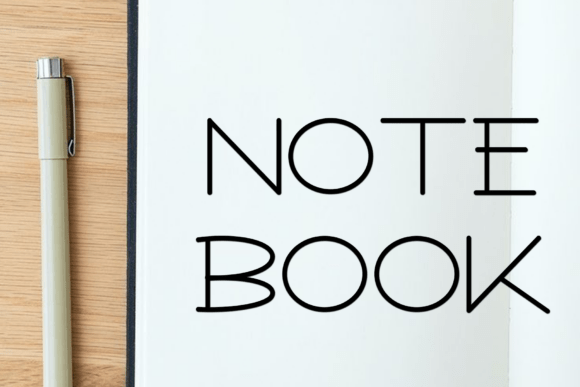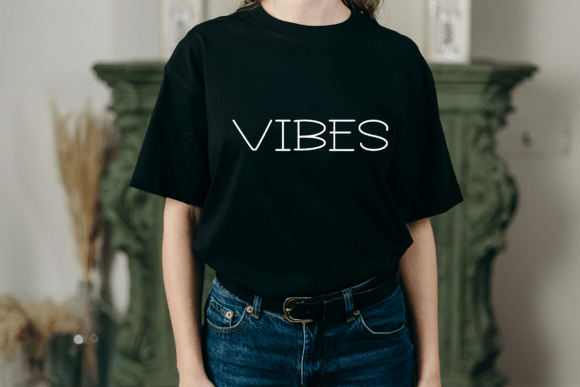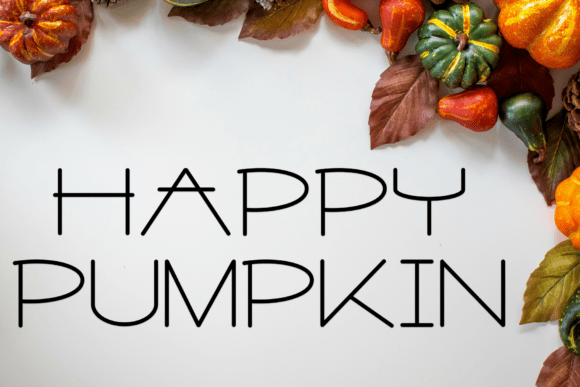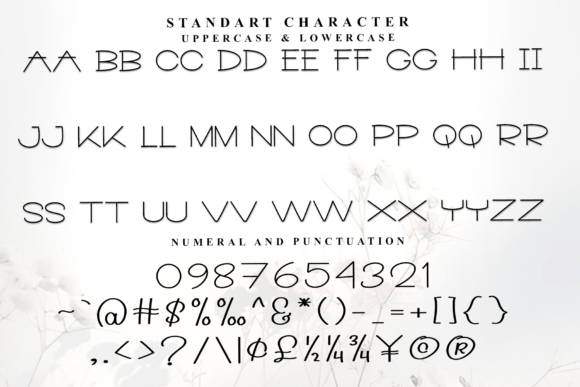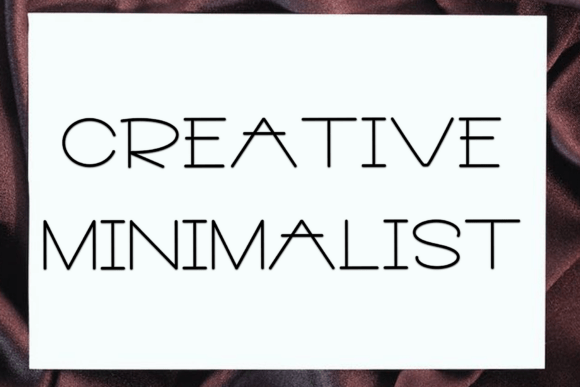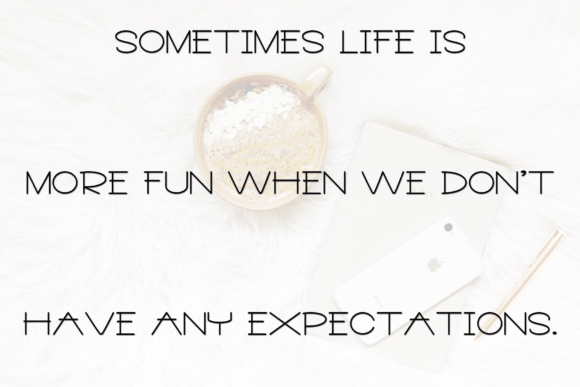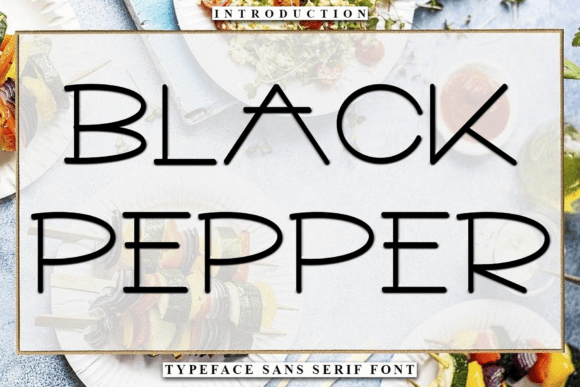
Introducing Black Pepper Font: The Modern Sans Serif Display Font
In the world of typography, a font can make or break a design. For designers and crafters looking for a modern and versatile font to elevate their projects, Black Pepper Font is an excellent choice. This modern sans serif display font boasts a clean yet distinctive geometric style, making it perfect for a wide range of applications.
What is Black Pepper Font?
Black Pepper Font is a contemporary sans serif display font designed to add a bold and creative flavor to any design. Its tall, narrow letterforms and sharp angles give it a sleek and modern edge, while the smooth, rounded strokes keep it approachable and versatile. This unique combination of features makes Black Pepper Font an excellent choice for designers looking to create stylish branding, logos, packaging, posters, and menus.
Key Features of Black Pepper Font
- Clean and Geometric Style: Black Pepper Font features a clean and geometric style that gives it a modern and sophisticated look.
- Tall and Narrow Letterforms: The font’s tall and narrow letterforms make it perfect for headlines, titles, and short texts.
- Sharp Angles and Smooth Strokes: The sharp angles and smooth, rounded strokes of Black Pepper Font give it a unique and distinctive look.
- Versatile and Approachable: Despite its bold and modern style, Black Pepper Font remains approachable and versatile, making it suitable for a wide range of design applications.
Use Cases for Black Pepper Font
Black Pepper Font is an incredibly versatile font that can be used in various design projects, including:
- Logos and Branding: The font’s modern and bold style makes it perfect for creating logos and branding materials that require a contemporary edge.
- Packaging Design: Black Pepper Font is ideal for packaging design, adding a stylish and sophisticated touch to product labels and packaging.
- Posters and Flyers: The font’s tall and narrow letterforms make it perfect for creating eye-catching posters and flyers.
- Menus and Restaurant Branding: Black Pepper Font can add a touch of elegance and sophistication to restaurant menus and branding materials.
Why Choose Black Pepper Font?
With so many fonts available, why choose Black Pepper Font? Here are a few reasons:
- Unique and Distinctive Style: Black Pepper Font offers a unique and distinctive style that sets it apart from other fonts.
- Highly Versatile: The font’s versatility makes it suitable for a wide range of design applications.
- Easy to Read: Despite its bold and modern style, Black Pepper Font remains easy to read, making it perfect for use in various design projects.
Tips for Using Black Pepper Font
To get the most out of Black Pepper Font, here are a few tips:
- Use it as a Headline Font: Black Pepper Font is perfect for use as a headline font, adding a bold and creative touch to your design.
- Pair it with Other Fonts: Experiment with pairing Black Pepper Font with other fonts to create a unique and visually appealing design.
- Experiment with Colors and Textures: Don’t be afraid to experiment with different colors and textures to add depth and interest to your design.
In conclusion, Black Pepper Font is an excellent choice for designers and crafters looking for a modern sans serif display font with a clean yet distinctive geometric style. Its tall, narrow letterforms, sharp angles, and smooth, rounded strokes make it perfect for a wide range of design applications, from logos and packaging to posters and menus. With its unique and distinctive style, versatility, and ease of use, Black Pepper Font is sure to add a bold and creative flavor to any design.